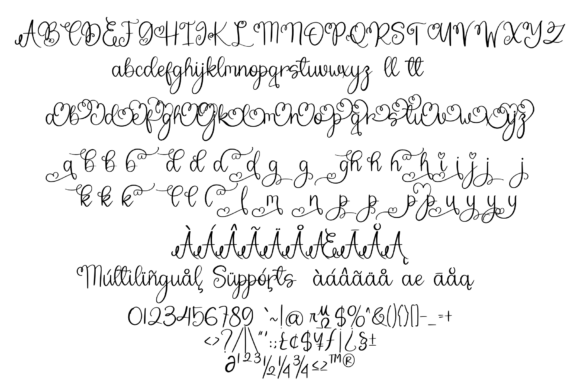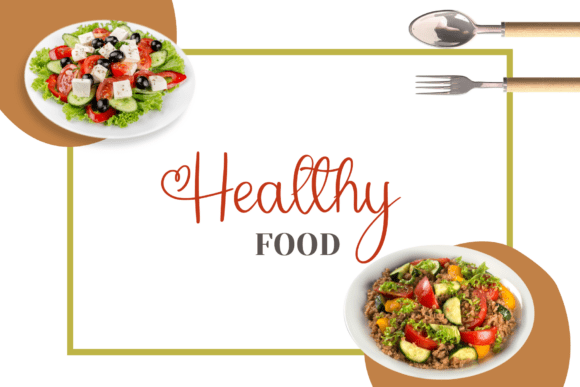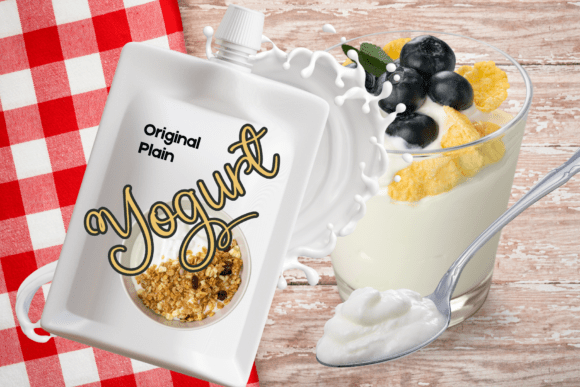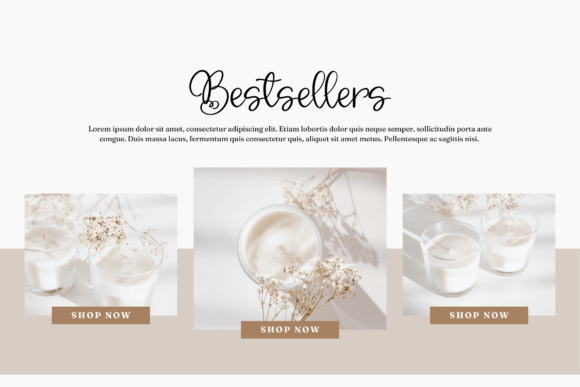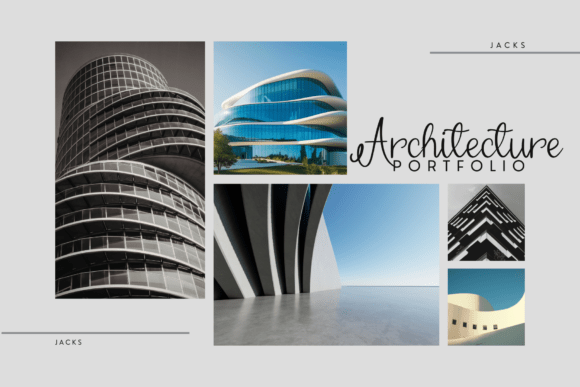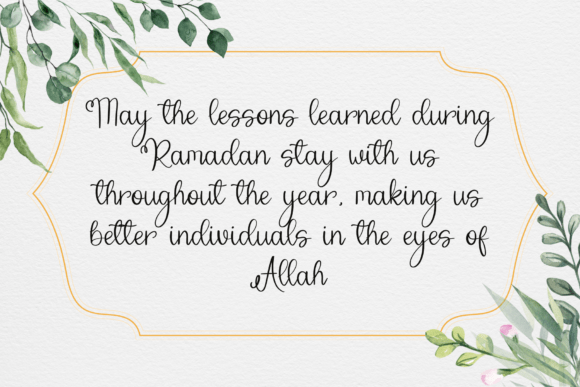
Introduction to Grindelwald Font
Have you ever been captivated by the serene beauty of a mountain town on a crisp winter morning? The snowflakes gently falling, the sound of laughter and chatter in the air, and the scent of peppermint wafting through the streets. It’s a moment that inspires creativity and sparks imagination. For designers, this feeling can be the perfect starting point for a project, and that’s exactly what the Grindelwald Font embodies.
With its soft, elegant, and playful design, the Grindelwald Font is a treasure trove of creative possibilities. Its smooth curves and charming swashes create a romantic yet friendly feel that’s perfect for a wide range of projects, from wedding designs to branding and packaging. Whether you’re looking for a high-quality design resource or a free download, the Grindelwald Font is a valuable addition to any designer’s toolkit.
Key Features of Grindelwald Font
- Unique, elegant script font with a transparent background, perfect for adding a touch of sophistication to any design
- Available in 6 different font styles, including bold and regular weights
- Designed for use in a variety of applications, including logos, branding, and typography-based designs
Honest Review: Grindelwald Font
I recently stumbled upon the Grindelwald Font, and I must say it’s a fantastic addition to any creative project. This font is perfect for designers who want a high-quality, elegant font for their designs.
Here are some of the features that stood out to me:
- ✨ High-quality design with a unique, modern look
- ✨ Transparent background, making it easy to use on any design
- ⚠️ Limited font styles, only a few options to choose from
- ⚠️ May not be suitable for designs that require bold, heavy font use
Overall, I’m impressed with the Grindelwald Font. It’s a great design resource that can add a touch of elegance to any creative project. If you’re looking for a high-quality font with a unique look, I’d definitely recommend giving it a try.
Introduction to Grindelwald Font
The Grindelwald Font is a high-quality, versatile design resource ideal for various creative projects. Its unique style and transparent background make it an excellent addition to any design.
Tips for Getting the Most Out of Grindelwald Font
To maximize the use of the Grindelwald Font, experiment with different font sizes, colors, and styles to achieve the desired look. Use it in combination with other design elements to create visually appealing designs.
The Grindelwald Font is suitable for a wide range of creative projects, including:
- Typography projects
- Editorial design
Alternatives to Grindelwald Font
1. Arial Rounded
Arial Rounded is a high-quality font that offers a similar aesthetic to Grindelwald Font. It is a sans-serif font with rounded edges, making it perfect for creative projects that require a friendly and approachable tone. Use it for digital design, presentations, and web development. Compared to Grindelwald Font, Arial Rounded has a more straightforward and modern feel.
2. Segoe Script
Segoe Script is a beautiful script font that can be used as an alternative to Grindelwald Font for creative projects. It features a cursive design with a transparent background, making it ideal for designs that require a touch of elegance. Use it for invitations, logos, and branding materials. Compared to Grindelwald Font, Segoe Script has a more refined and sophisticated look.
3. Open Sans
Open Sans is a free download font that offers a clean and modern design. It is a sans-serif font that can be used for a wide range of creative projects, from web development to print design. Use it for designs that require a high-quality font with a transparent background. Compared to Grindelwald Font, Open Sans has a more minimalist and versatile feel.
4. Lobster
Lobster is a beautiful script font that can be used as an alternative to Grindelwald Font for creative projects. It features a cursive design with a transparent background, making it ideal for designs that require a touch of sophistication. Use it for invitations, logos, and branding materials. Compared to Grindelwald Font, Lobster has a more vintage and elegant look.